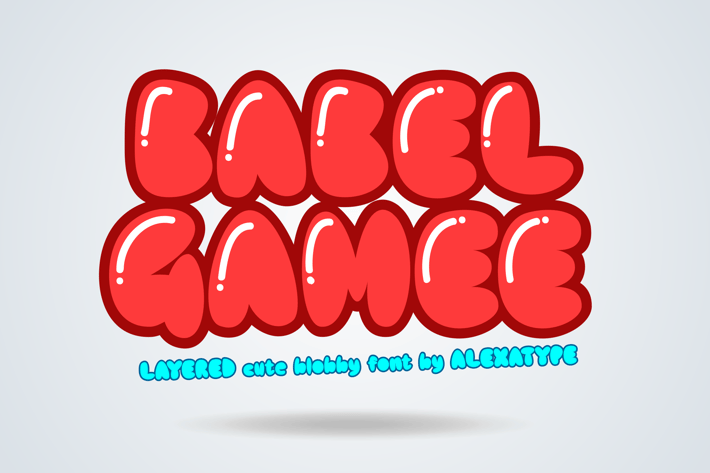
BABELGAMEE - Cute Chubby Children Font
Babel Gamee is a chubby, playful display font designed to bring joy, excitement, and a bold pop-art feel to any project. With its soft, inflated letterforms and dynamic presence, this font is perfect for kids' content, fun branding, cartoons, and energetic social media graphics. Whether you're designing toy packaging, YouTube thumbnails, or festival posters, Babel Gamee ensures your message stands out in the most fun and bubbly way possible.
Key Features
Bold & Chubby Bubble Style – Adds fun and energy to every design.
Perfect for Kids & Playful Branding – Ideal for cartoons, comics, and toy packaging.
Vibrant & Eye-Catching Aesthetic – Great for stickers, merch, and colorful marketing materials.
Optimized for Digital & Print – Works beautifully on logos, posters, and animated graphics.
Babel Gamee is perfect for playful brands, content creators, and businesses looking for a fun, chunky display font. Its puffy, animated style makes kids’ branding, toy advertisements, and pop-art-inspired visuals feel lively and exciting. Whether used in social media posts, bold lettering for games, or dynamic promotional graphics, Babel Gamee makes every design feel fresh, youthful, and full of life.